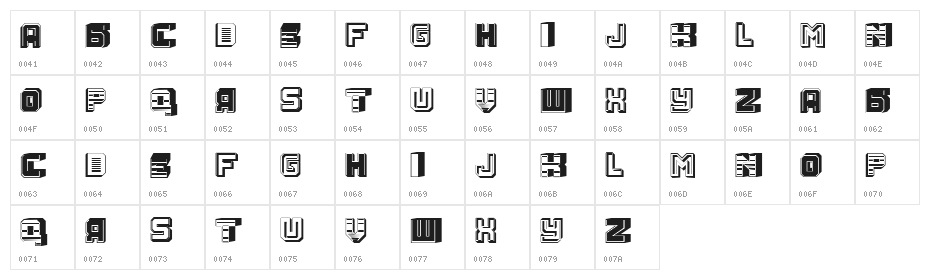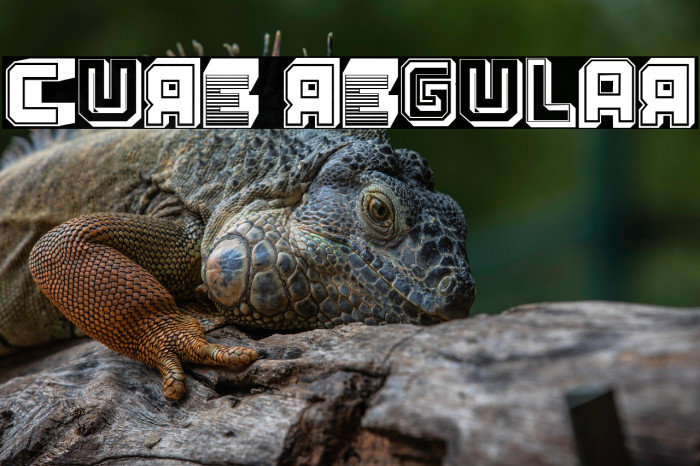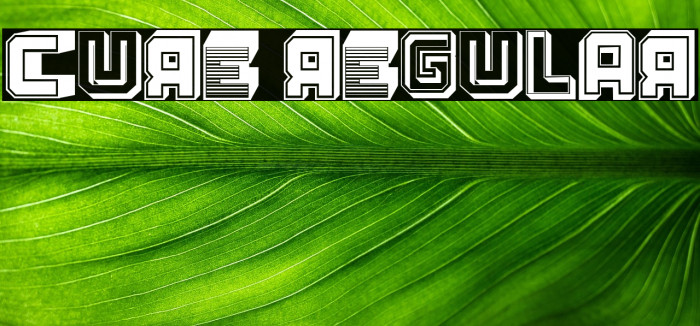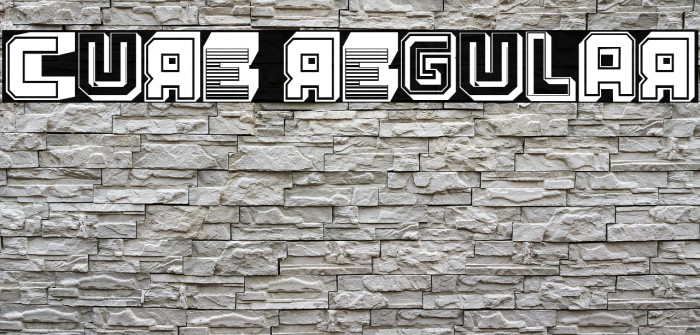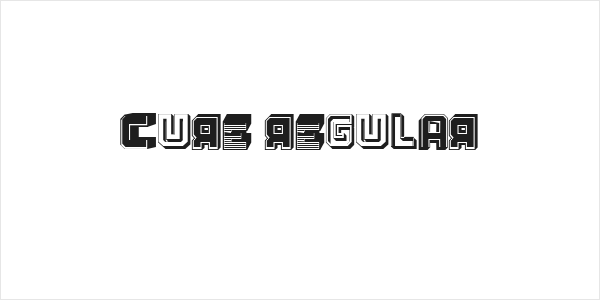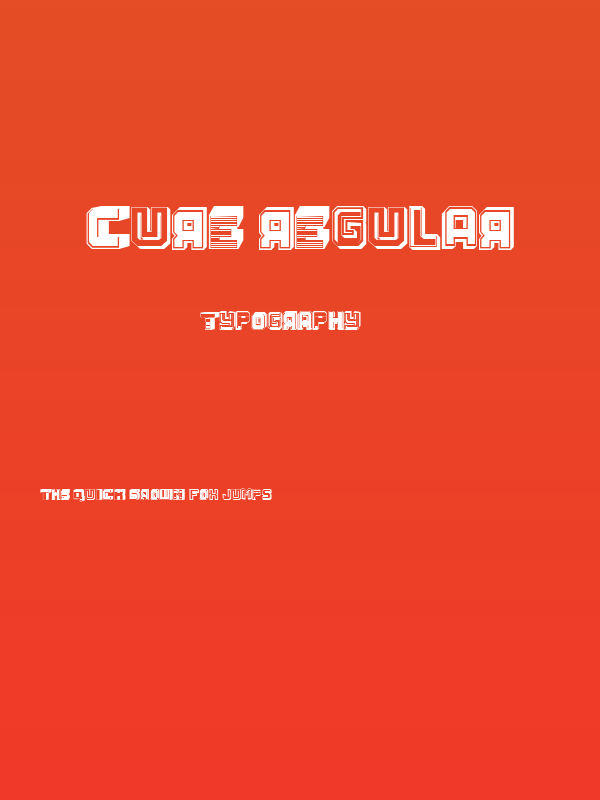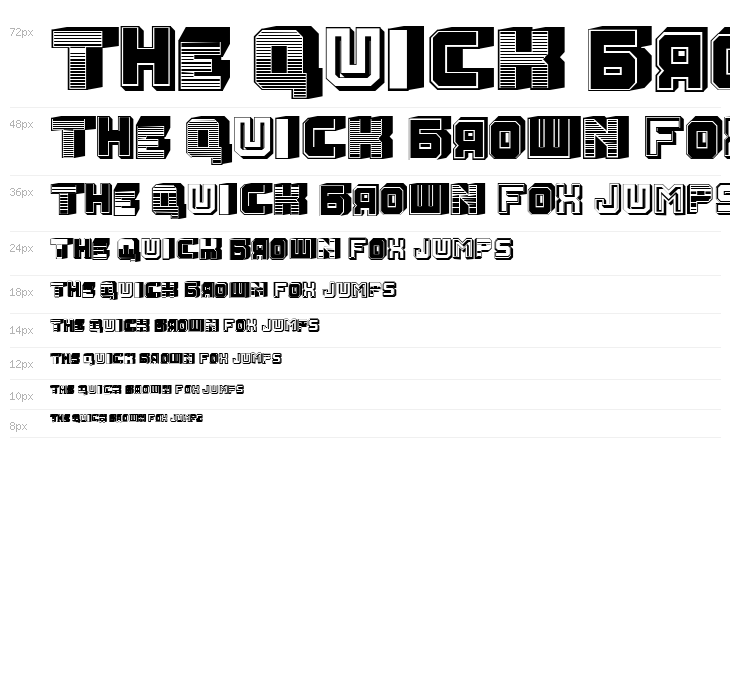
Cure Regular Font
Cure Regular Description
This font features a bold, three-dimensional design with a distinct shadow effect that gives each character a sense of depth and volume. The uppercase letters are particularly striking, with a blocky, geometric style that is both modern and eye-catching. The use of horizontal lines within the characters adds a unique texture, enhancing the visual interest. The font's strong presence makes it ideal for attention-grabbing headlines or titles. Its playful yet structured appearance can add a dynamic element to any design project.